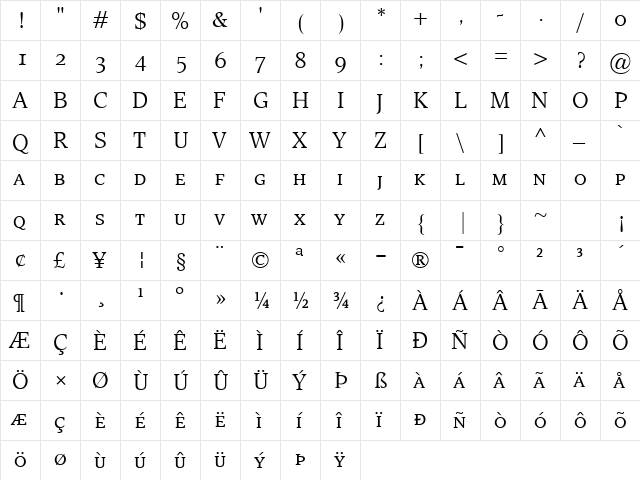
Esperanto SmallCaps Regular
Design Context for Esperanto SmallCaps Typeface
Esperanto SmallCaps is a composed and adaptable typeface that performs quietly and consistently across a wide range of design contexts.